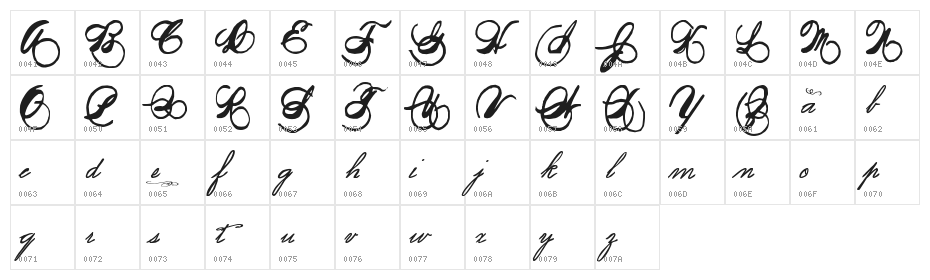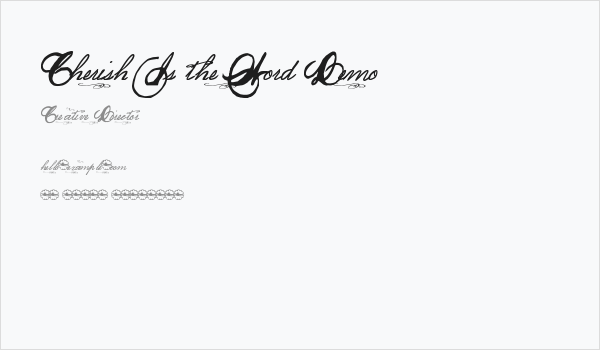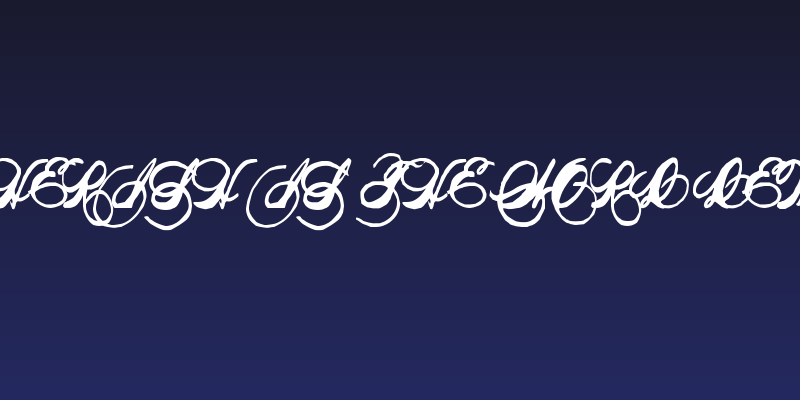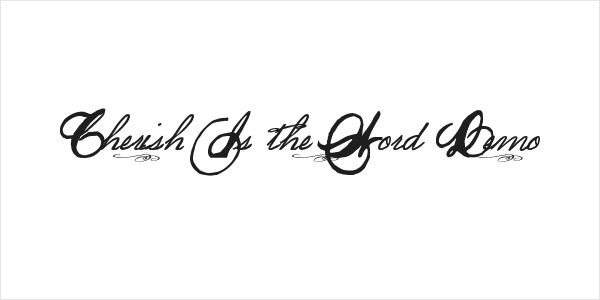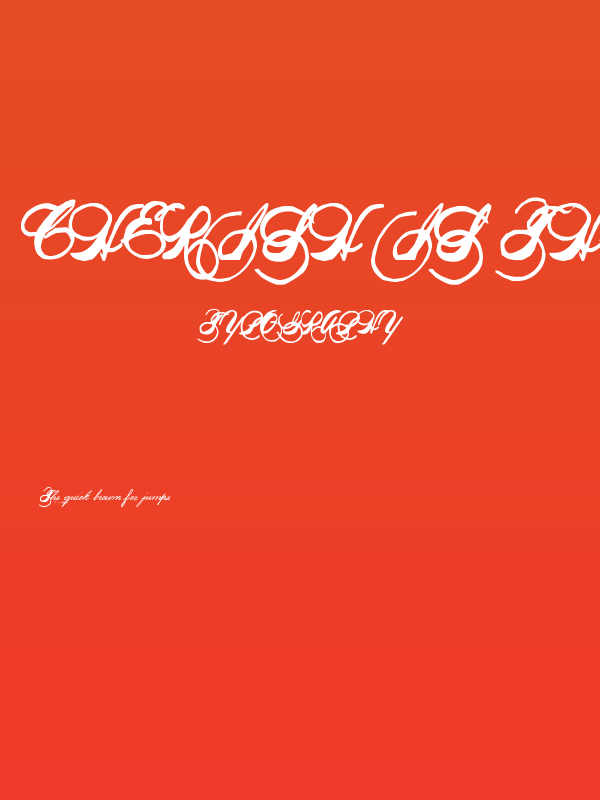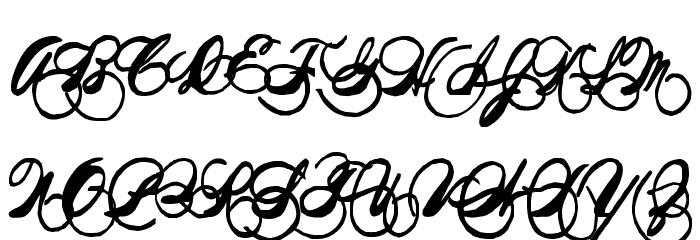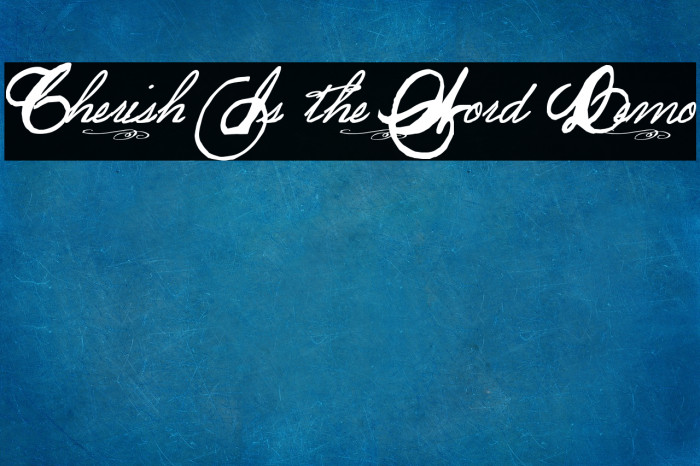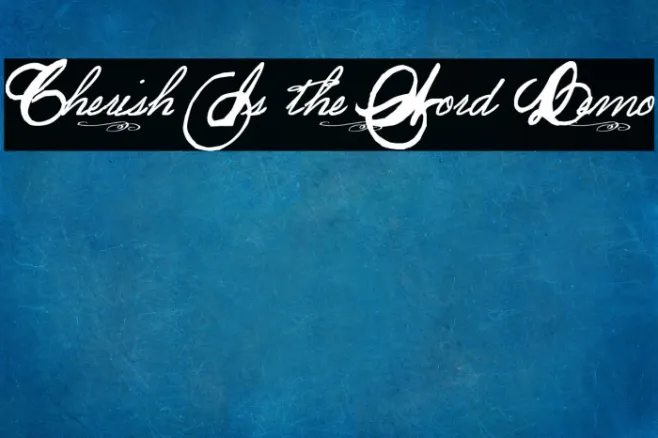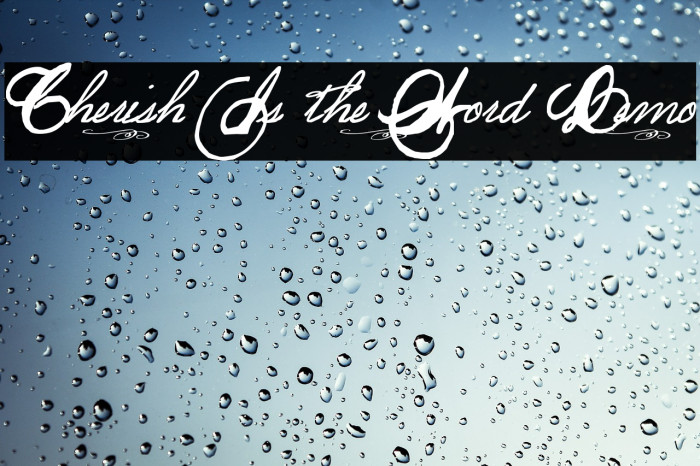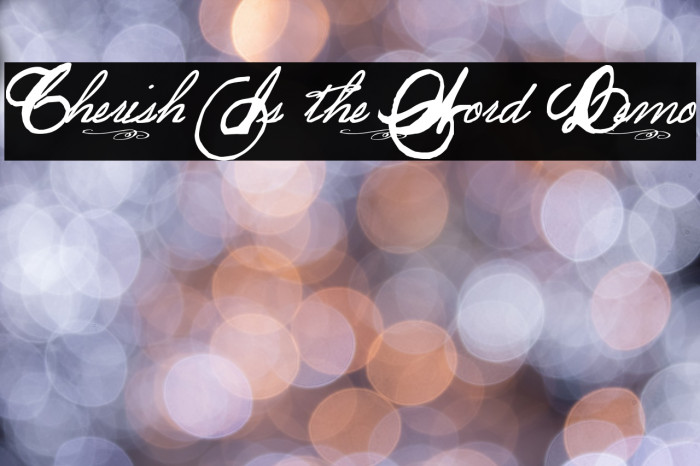
Cherish Is the Word Demo Font
Cherish Is the Word Demo Description
This font exudes elegance and sophistication with its intricate, flowing script style. The characters are highly decorative, featuring elaborate loops and swirls that create a sense of movement and grace. The uppercase letters are particularly ornate, with each letter showcasing unique flourishes that add to the overall aesthetic. The lowercase letters maintain a consistent style, with smooth, connected strokes that enhance readability while retaining the decorative nature. The font's design is reminiscent of classic calligraphy, making it suitable for projects that require a touch of refinement and artistry. The numbers and special characters are equally detailed, ensuring a cohesive look across all text elements.
| Overall Style | Classic |
| Use Case | Logos, Invitations, Decorative text |
| Proposed Projects | Ideal for wedding invitations, luxury branding, elegant stationery, and artistic projects. |